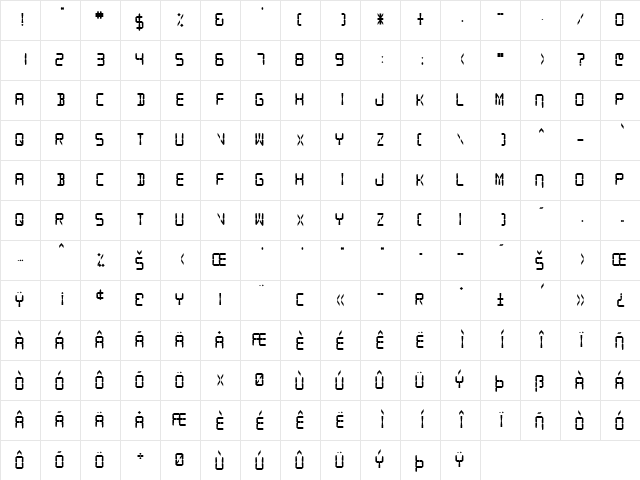
SF Digital Readout Heavy
Design Context for SF Digital Readout Typeface
SF Digital Readout channels digital-age aesthetics through its sharp, structured letterforms — ideal for brands that want to signal innovation.
Pro Tip: Use SF Digital Readout in combination with a neutral sans for body text. Let it define the brand voice in headlines while keeping reading comfortable elsewhere.